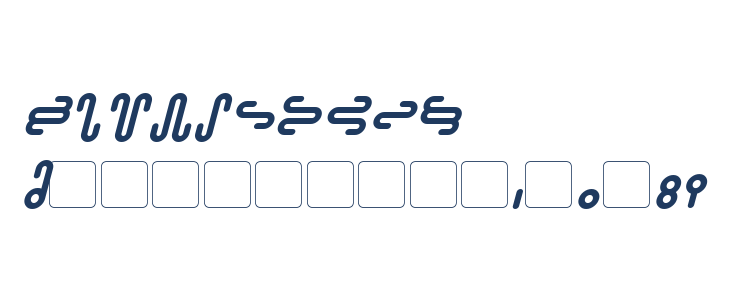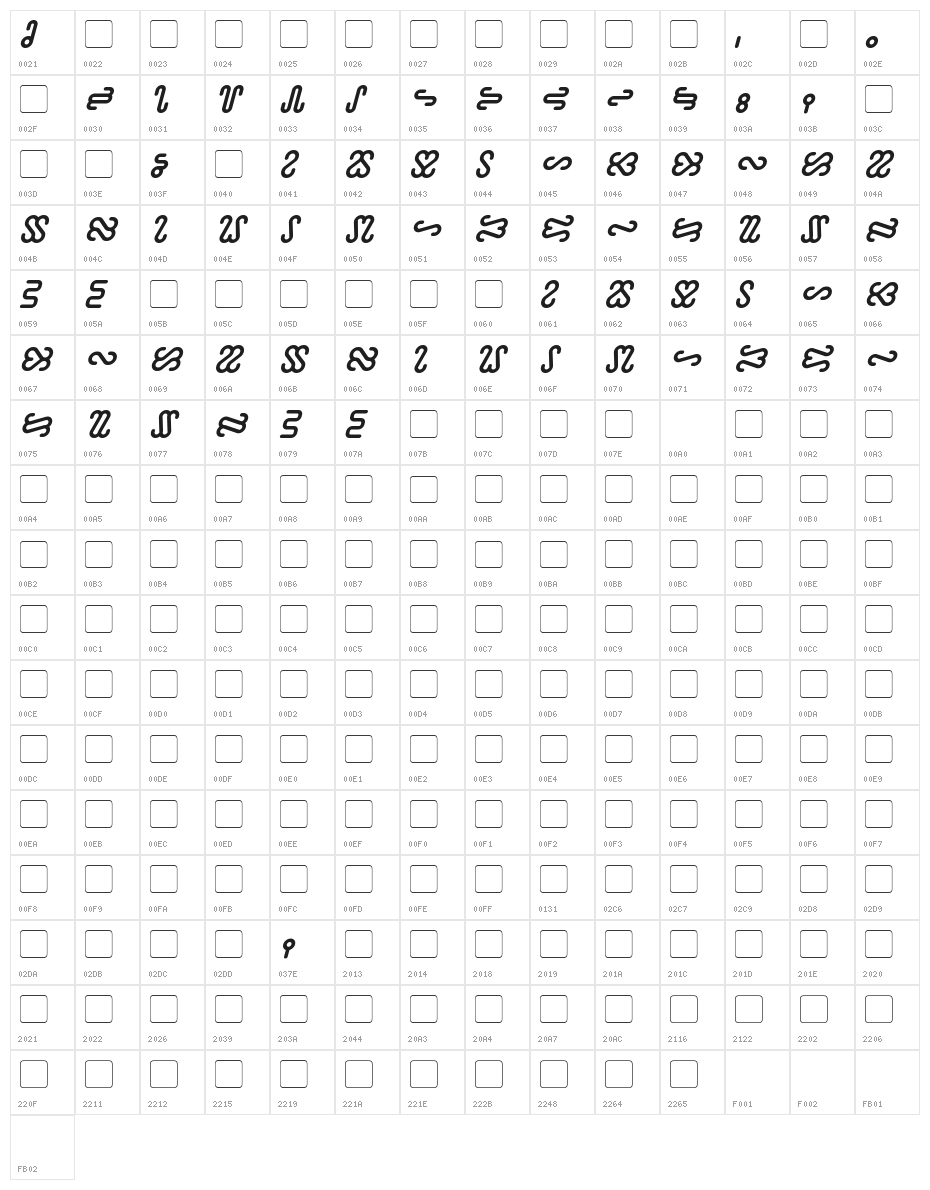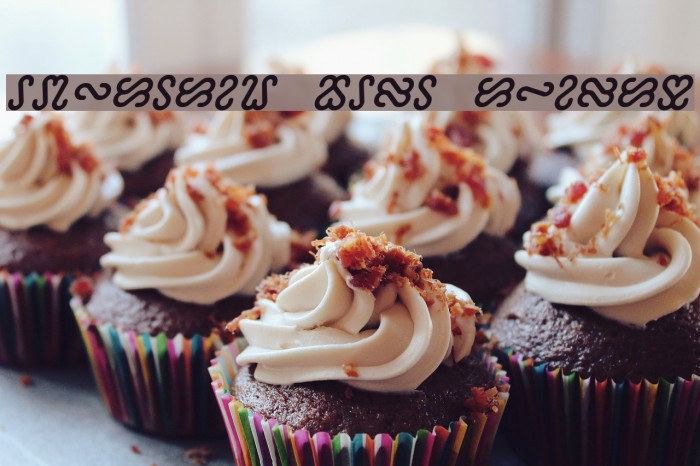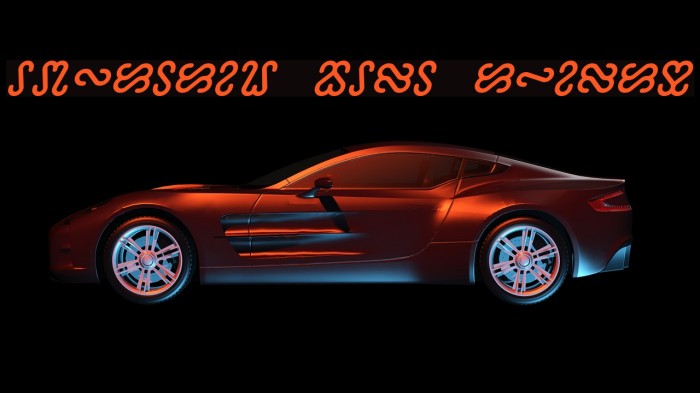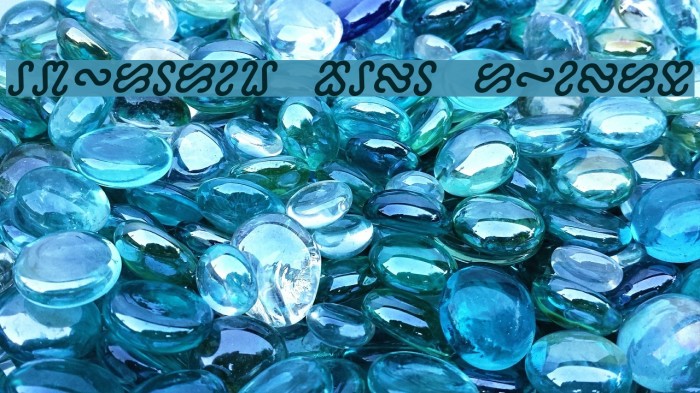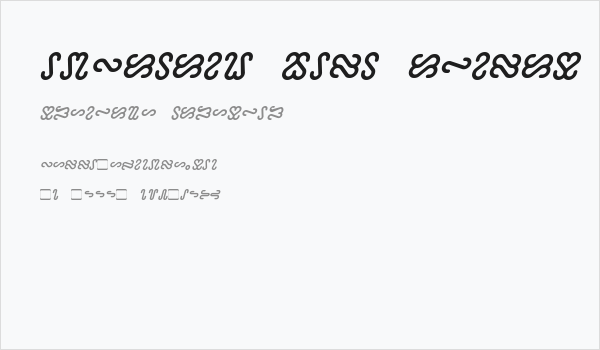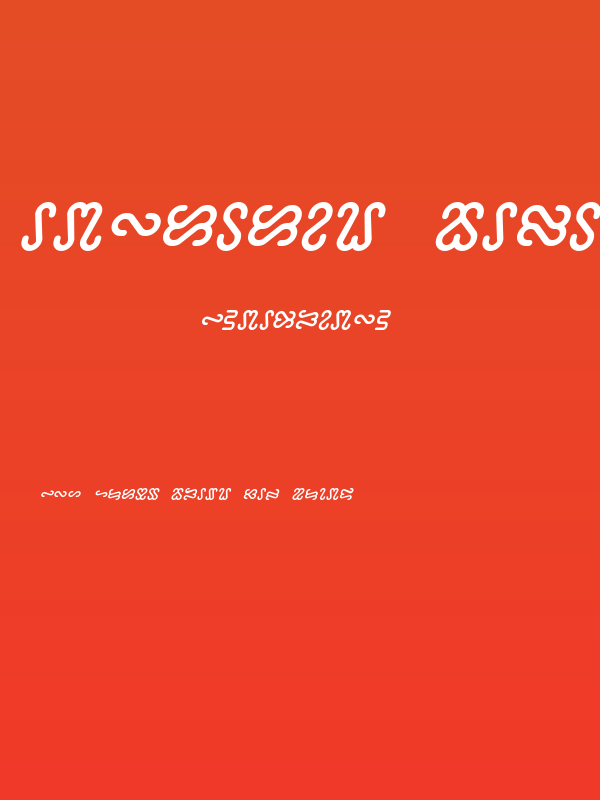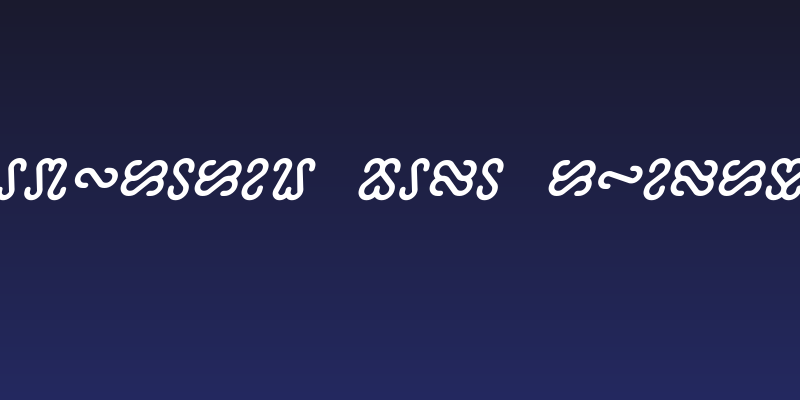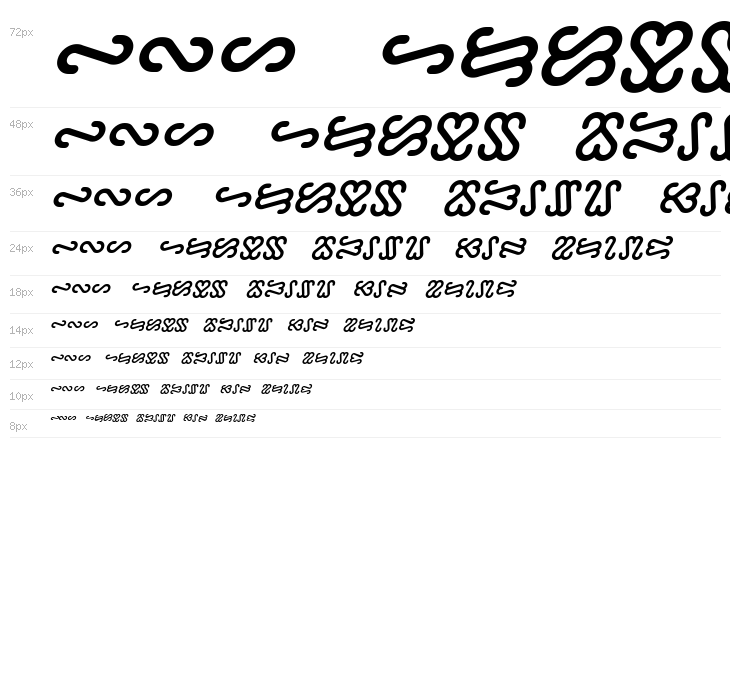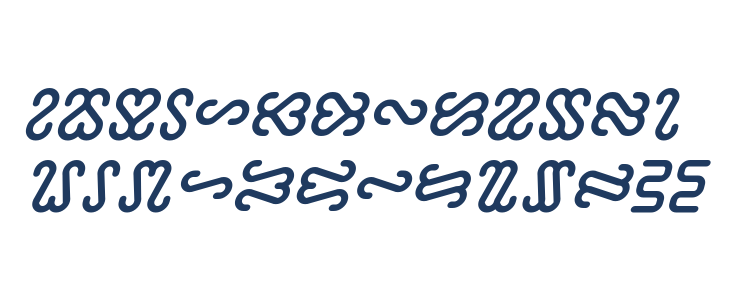
Ophidian Bold Italic Font
Ophidian Bold Italic Description
This font features a unique, serpentine design with bold, flowing lines that create an intricate and decorative appearance. The characters are highly stylized, resembling abstract shapes with a consistent thickness throughout. The font's boldness and italic slant give it a dynamic and energetic feel, making it stand out in any design. Its distinctive style is reminiscent of ancient scripts or mystical symbols, providing a sense of mystery and intrigue. The overall look is both modern and artistic, suitable for creative and unconventional projects.
| Use Case | Logos, Posters, Artistic projects |
| Proposed Projects | Ideal for fantasy-themed designs, logos, posters, and artistic projects that require a mystical or ancient aesthetic. |